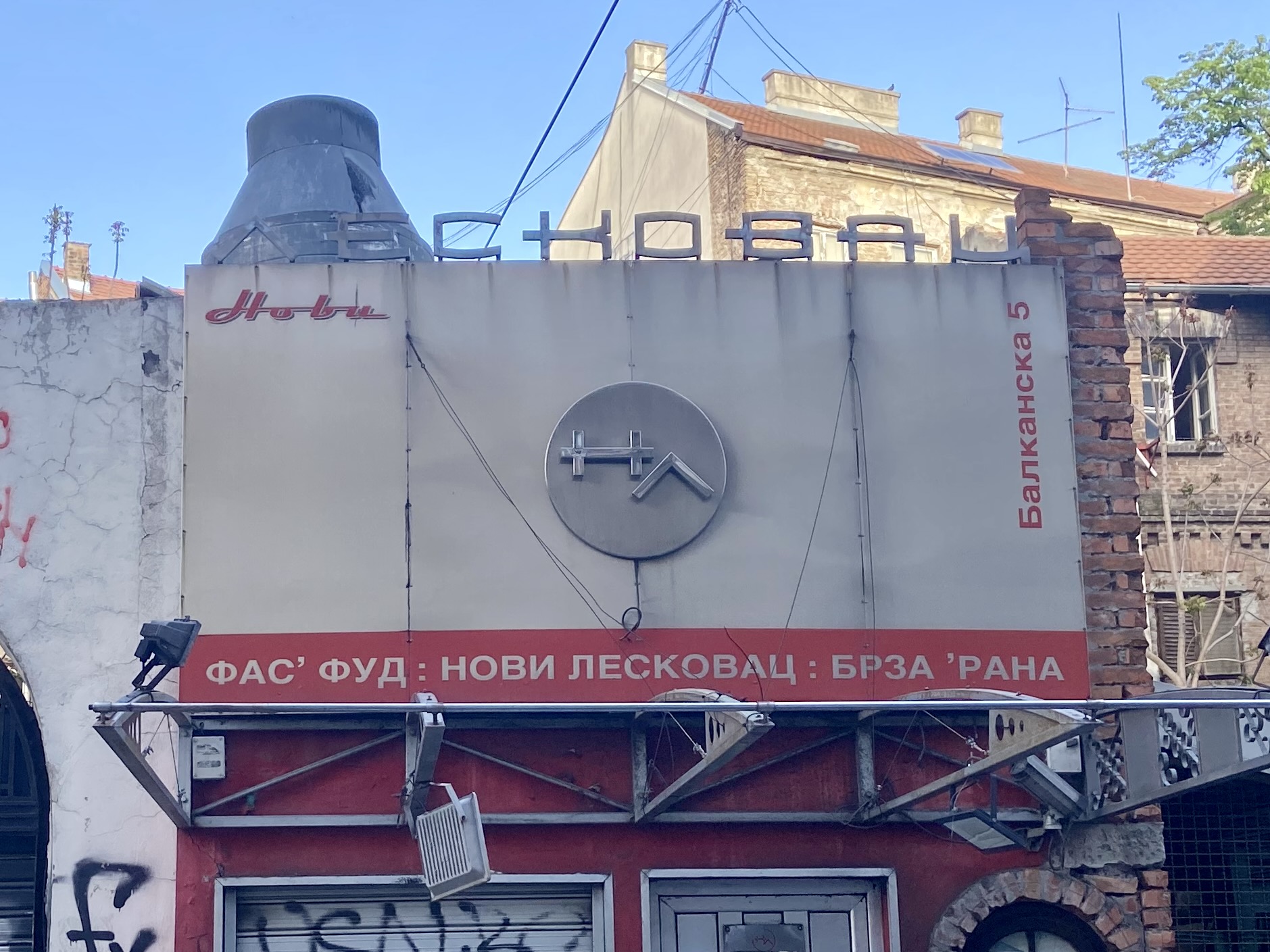
Novi Leskovac
The defunct fast food restaurant Novi Leskovac (New Leskovac) has some interesting shortenings in the café subheader: "ФАСТ' 'ФУД' (the letter 'T' is omitted) and "BRZA 'RANA" (the letter X is omitted). These are colloquial shortenings of words used in everyday speech, but they are rarely seen on street signs.